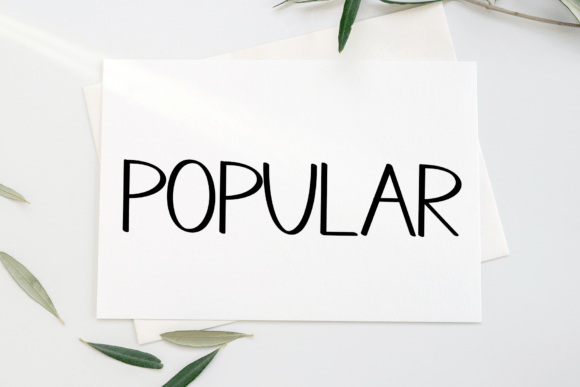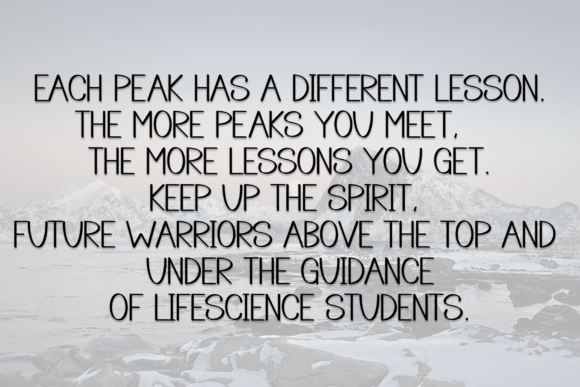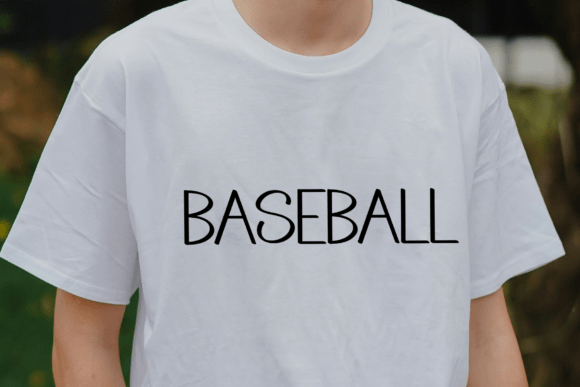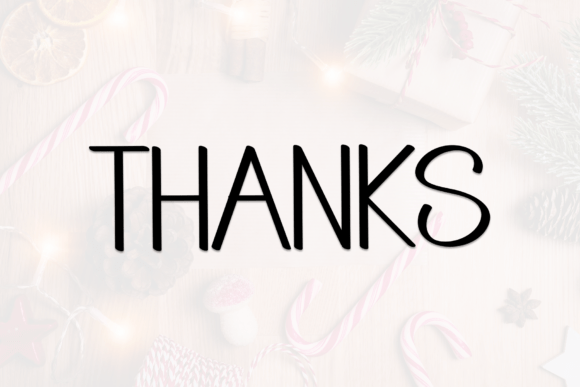
Introducing Christmas King Font: The Perfect Holiday Companion for Designers and Crafters
The holiday season is upon us, and with it comes the need for festive and inviting designs that capture the warmth and magic of Christmas. For designers and crafters looking to add a touch of seasonal cheer to their projects, the Christmas King font is here to reign supreme. This charming and casually elegant display font is designed to bring a subtle, welcoming touch to your holiday creations, making it the perfect companion for your festive designs.
The Characteristics of Christmas King Font
Christmas King font boasts tall, thin strokes that give it a distinctive and sophisticated look. Its slightly handmade style adds a warm, personalized feel to the typeface, making it ideal for projects that require a genuine, homemade touch. The font balances classic readability with playful character, ensuring that your designs are not only visually appealing but also easy to read.
Why Choose Christmas King Font?
So, why should you choose Christmas King font for your holiday projects? Here are just a few reasons:
- Unique and eye-catching: The Christmas King font features a unique and eye-catching design that will set your projects apart from the rest.
- Versatile: The font is versatile and can be used for a wide range of projects, from gift tags and apparel to seasonal quotes and packaging.
- Easy to read: Despite its elegant and sophisticated design, the Christmas King font is easy to read, making it perfect for projects that require a clear and concise message.
- Handmade feel: The font’s slightly handmade style gives it a warm and personalized feel, making it perfect for projects that require a genuine, homemade touch.
Ideas for Using Christmas King Font
The Christmas King font is incredibly versatile, and can be used for a wide range of holiday projects. Here are a few ideas to get you started:
- Gift tags: Add a touch of festive flair to your gift tags with the Christmas King font.
- Cozy apparel: Use the font to create warm and inviting designs for holiday apparel, such as sweaters and t-shirts.
- Seasonal quotes: Create inspiring and festive quotes using the Christmas King font.
- Packaging: Add a touch of holiday cheer to your packaging with the Christmas King font.
- Christmas crafting: Use the font to create festive and inviting designs for your Christmas crafting projects, such as card making and scrapbooking.
Tips for Getting the Most Out of Christmas King Font
To get the most out of the Christmas King font, here are a few tips:
- Experiment with colors: The Christmas King font looks great in a range of colors, from traditional holiday colors like red and green to more modern colors like metallic silver and gold.
- Play with textures: Add a touch of texture to your designs with the Christmas King font by experimenting with different textures and patterns.
- Mix and match: Don’t be afraid to mix and match the Christmas King font with other fonts and design elements to create a unique and eye-catching look.
The Christmas King font is the perfect companion for designers and crafters looking to add a touch of festive flair to their holiday projects. With its charming and casually elegant design, tall and thin strokes, and slightly handmade style, this font is sure to reign supreme over your festive designs. Whether you’re creating gift tags, cozy apparel, seasonal quotes, packaging, or Christmas crafting projects, the Christmas King font is the perfect choice. So why wait? Download the Christmas King font today and start creating your own festive and inviting designs!